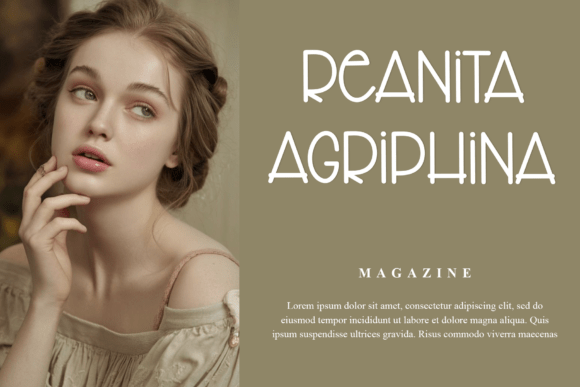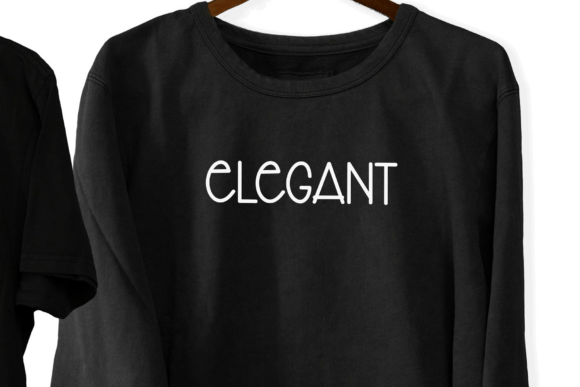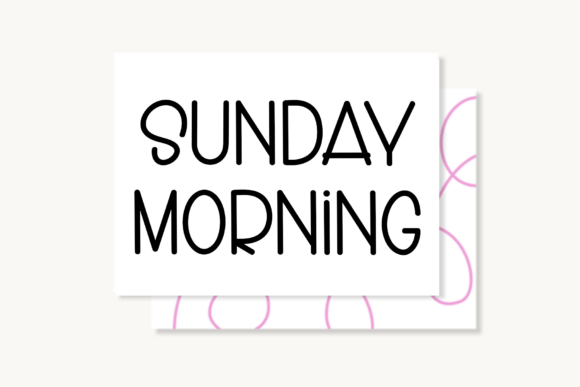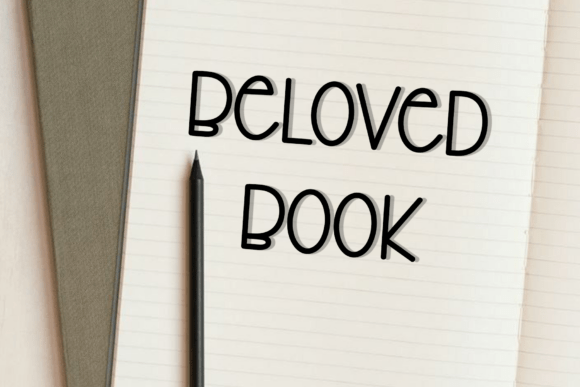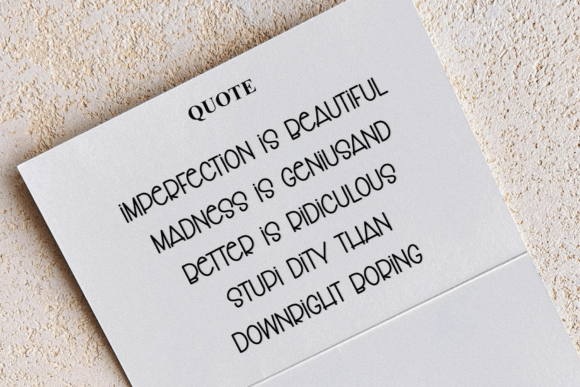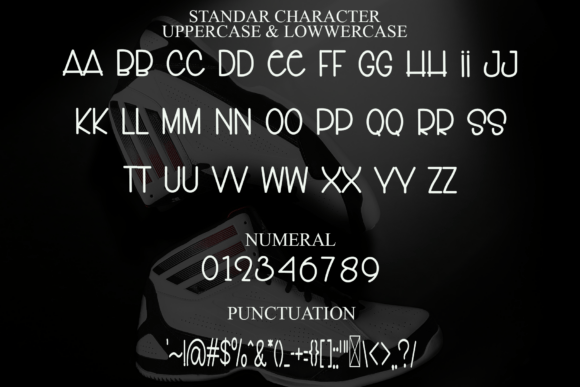
Introduction to Sneaky Grinch Font
Have you ever stared at a blank design canvas, struggling to come up with the perfect font to bring your creative project to life? I’m sure many designers can relate to that feeling of frustration and excitement all at once. For me, it was the moment I stumbled upon the Sneaky Grinch Font – and my design world was turned upside down in the best possible way.
As a go-to design resource, the Sneaky Grinch Font offers a unique blend of quirky charm and high-quality design that’s perfect for adding a touch of whimsy to your holiday projects or branding. With its tall, narrow letterforms and unexpected curves, this font is sure to stand out and leave a lasting impression. And the best part? It’s available for free download, complete with a transparent background, making it easy to integrate into any design project.
Whether you’re designing festive packaging or playful logos, the Sneaky Grinch Font is a valuable addition to any designer’s toolkit. Its offbeat charm and stylish twist make it a must-have for anyone looking to add a little bit of magic to their creative projects.
Key Features of Sneaky Grinch Font
- Unique and playful design, ideal for creative projects and designs that require a touch of whimsy.
- Designed to be versatile and adaptable, making it an excellent choice for a wide range of creative projects.
- Instantly adds a fun and quirky touch to any design, making it a great asset for designers and artists.
Honest Review: Sneaky Grinch Font
I recently had the chance to experiment with the Sneaky Grinch Font, and I must say it’s been an exciting addition to my design resources. This high-quality font is perfect for creative projects that require a touch of whimsy and playfulness.
What works well is the Sneaky Grinch Font’s versatility. It can be used for a wide range of applications, from editorial designs to social media graphics. The font’s unique design also makes it easy to incorporate into digital art projects that require a transparent background.
Here are some key features I love about the Sneaky Grinch Font:
⚠️ One limitation of the Sneaky Grinch Font is that it may not be suitable for projects that require a more formal or professional tone. Additionally, the font’s unique design may not be to everyone’s taste.
Overall, I’m impressed with the Sneaky Grinch Font’s creativity and versatility. It’s a great addition to any designer’s toolkit, especially for those looking to add a touch of fun and playfulness to their projects. Whether you’re working on a design project or just experimenting with new fonts, I highly recommend giving the Sneaky Grinch Font a try. ✨
Common Use Cases and Tips
The Sneaky Grinch Font is ideal for creating unique and creative projects, such as greeting cards, posters, and social media graphics. To get the most out of this font, experiment with different font sizes, colors, and styles to create a visually appealing design. You can also use the transparent background feature to create intricate designs and add depth to your projects.